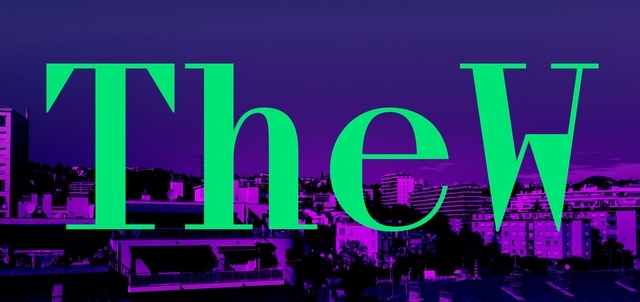
TheW Font
TheW Font is ideal for distinctive branding projects, memorable logo designs, impactful headline typography, bold advertising campaigns, unique identity systems, standout poster designs, creative magazine headers, experimental art projects, attention-grabbing signage, and innovative visual communications.
What makes TheW Font so exciting is its bold embodiment of typographic individuality and creative confidence that immediately establishes a unique visual presence through distinctive letterform design and memorable character expression. This confidently crafted typeface features striking letterforms with characteristic proportions and memorable design details that instantly convey originality, creative courage, and the powerful impact of distinctive typography. The font's bold construction and individualistic aesthetic create an immediate sense of creative authority and design confidence, making it ideal for projects that need to communicate creative leadership, brand distinction, and the transformative power of memorable typography to audiences seeking authentic creative expression and meaningful visual differentiation in competitive markets.
The TheW Font family typically includes multiple distinctive weights and creative styles, often featuring regular, bold, and ultra-bold variations along with dynamically crafted italic versions. Creative font collections frequently offer additional distinctive elements such as stylistic alternates, unique ligatures, and memorable decorations that enhance the individualistic aesthetic and provide designers with comprehensive tools for creating genuinely distinctive and creatively powerful communications.
The distinctive nature of TheW Font makes it particularly effective for targeting demographics that value creative originality and visual innovation in their personal and professional expressions. Creative directors and brand innovators will find this font especially valuable for materials that must establish immediate visual distinction and connect with audiences seeking authentic creative experiences and meaningful design differentiation.
What sets TheW Font apart is its ability to convey creative boldness while maintaining the functionality necessary for effective communication across diverse applications. This balanced characteristic makes it suitable for both experimental creative contexts and professional branding applications where projecting creative confidence and maintaining practical usability must coexist harmoniously.
Professional designers recognize that TheW Font brings invaluable creative distinction to projects across industries including advertising, entertainment, creative agencies, and innovative branding. Its distinctive character and memorable appeal make it essential for organizations whose mission centers on creative leadership, visual innovation, and establishing memorable brand presence in increasingly crowded visual landscapes.
The strategically crafted distinctiveness of TheW Font ensures consistent creative impact across all distinction-focused communication applications while celebrating the fundamental importance of typographic individuality in memorable design solutions.